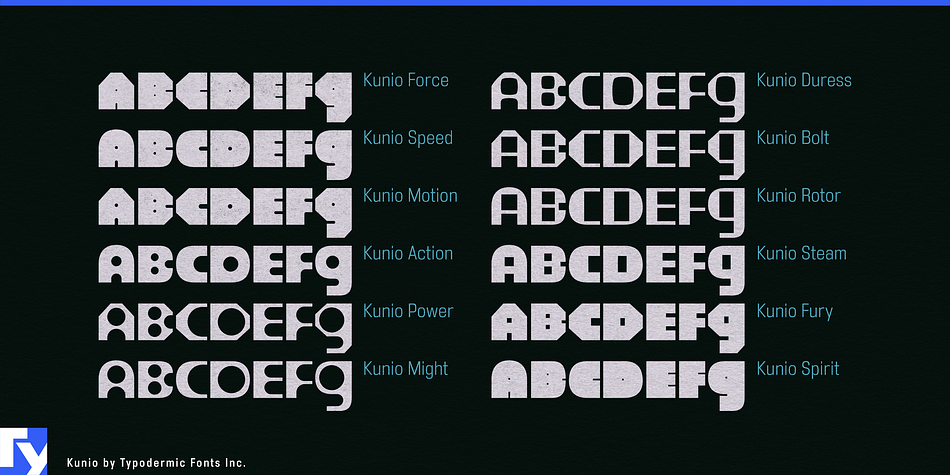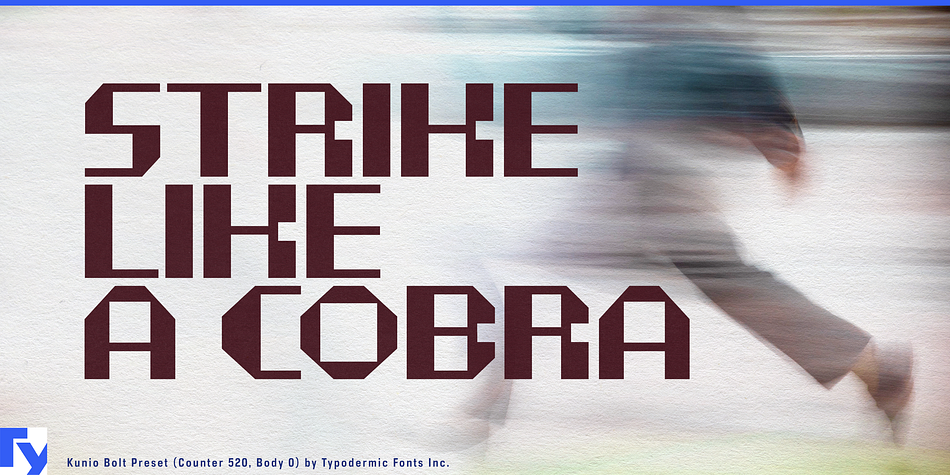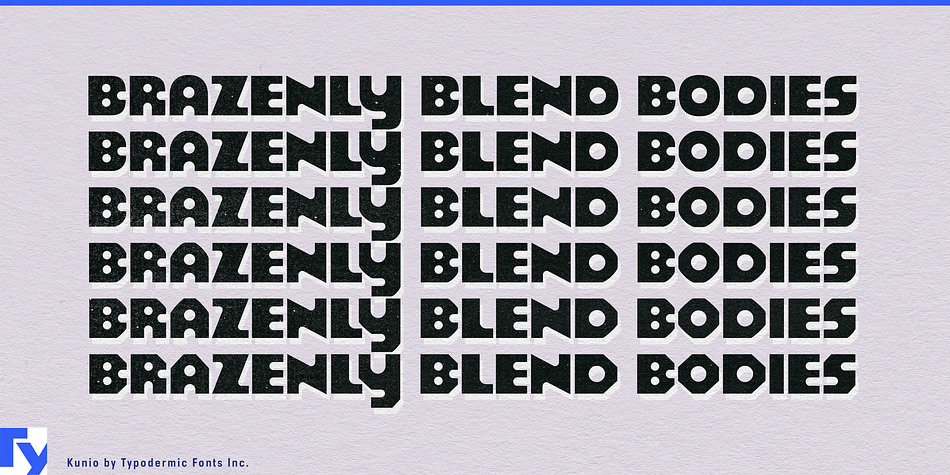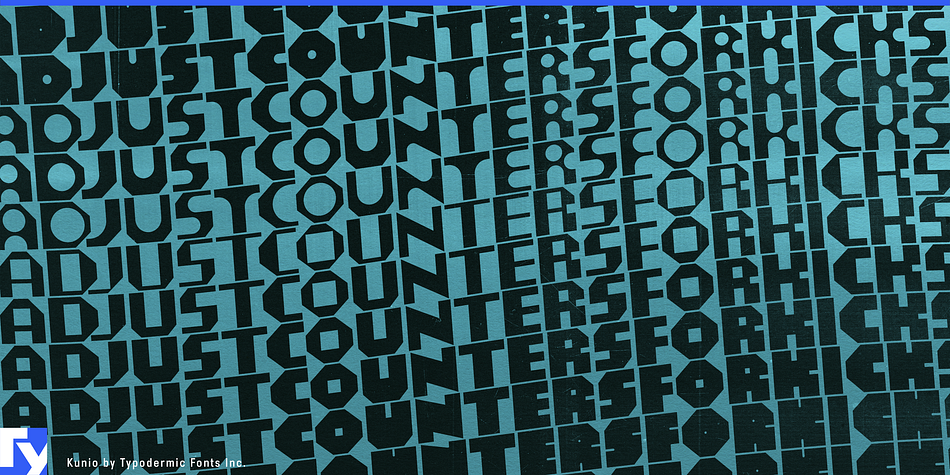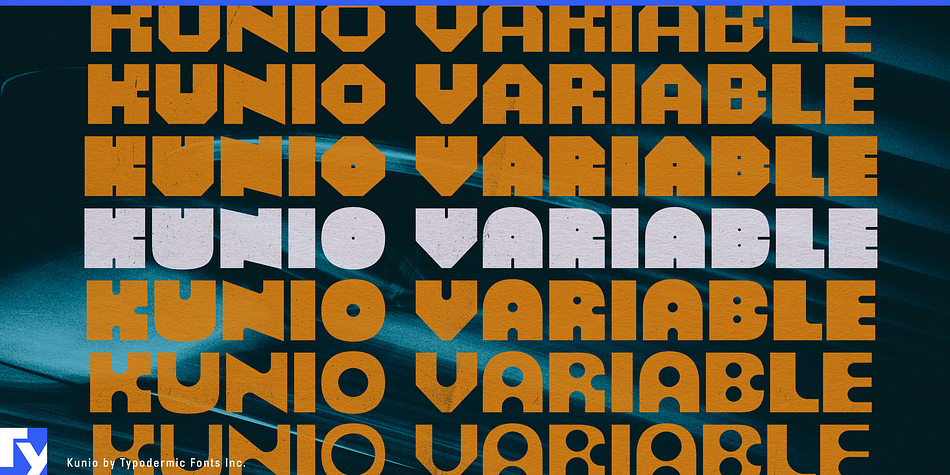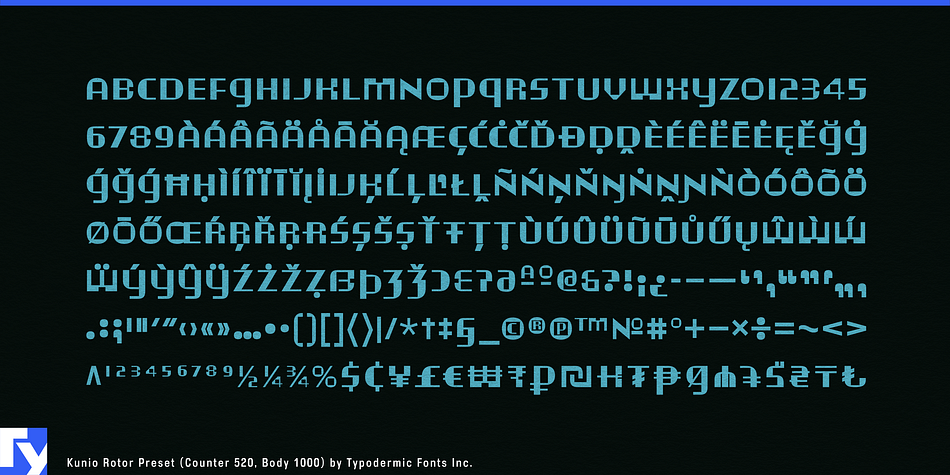
Variable font technology was used to create the art deco font Kunio. It currently works in Adobe Illustrator, Photoshop InDesign and will be supported in other apps soon. Adjust the “body” slider to change the shapes from soft to hard. Adjust the “counter” slider to changes the interior shapes from thin/round, fat/square, to thin/square. There are a million combinations and some handy presets too. Kunio includes lots of currency symbols as well as OpenType fractions. Most Latin-based European writing systems are supported, including the following languages. Afaan Oromo, Afar, Afrikaans, Albanian, Alsatian, Aromanian, Aymara, Azerbaijani, Bashkir (Latin), Basque, Belarusian (Latin), Bemba, Bikol, Bosnian, Breton, Cape Verdean, Creole, Catalan, Cebuano, Chamorro, Chavacano, Chichewa, Crimean Tatar (Latin), Croatian, Czech, Danish, Dawan, Dholuo, Dutch, English, Estonian, Faroese, Fijian, Filipino, Finnish, French, Frisian, Friulian, Gagauz (Latin), Galician, Ganda, Genoese, German, Gikuyu, Greenlandic, Guadeloupean Creole, Haitian Creole, Hawaiian, Hiligaynon, Hungarian, Icelandic, Igbo, Ilocano, Indonesian, Irish, Italian, Jamaican, Kaingang, Kanuri, Kaqchikel, Karakalpak (Latin), Kashubian, Kikongo, Kinyarwanda, Kirundi, Kurdish (Latin), Latvian, Lithuanian, Lombard, Low Saxon, Luxembourgish, Maasai, Makhuwa, Malay, Maltese, Māori, Moldovan, Montenegrin, Nahuatl, Ndebele, Neapolitan, Norwegian, Novial, Occitan, Ossetian (Latin), Papiamento, Piedmontese, Polish, Portuguese, Quechua, Rarotongan, Romanian, Romansh, Sami, Sango, Saramaccan, Sardinian, Scottish Gaelic, Serbian (Latin), Shona, Sicilian, Silesian, Slovak, Slovenian, Somali, Sorbian, Sotho, Spanish, Swahili, Swazi, Swedish, Tagalog, Tahitian, Tetum, Tongan, Tshiluba, Tsonga, Tswana, Tumbuka, Turkish, Turkmen (Latin), Tuvaluan, Uzbek (Latin), Venda, Venetian, Vepsian, Võro, Walloon, Waray-Waray, Wayuu, Welsh, Wolof, Xavante, Xhosa, Yapese, Zapotec, Zarma, Zazaki, Zulu and Zuni.